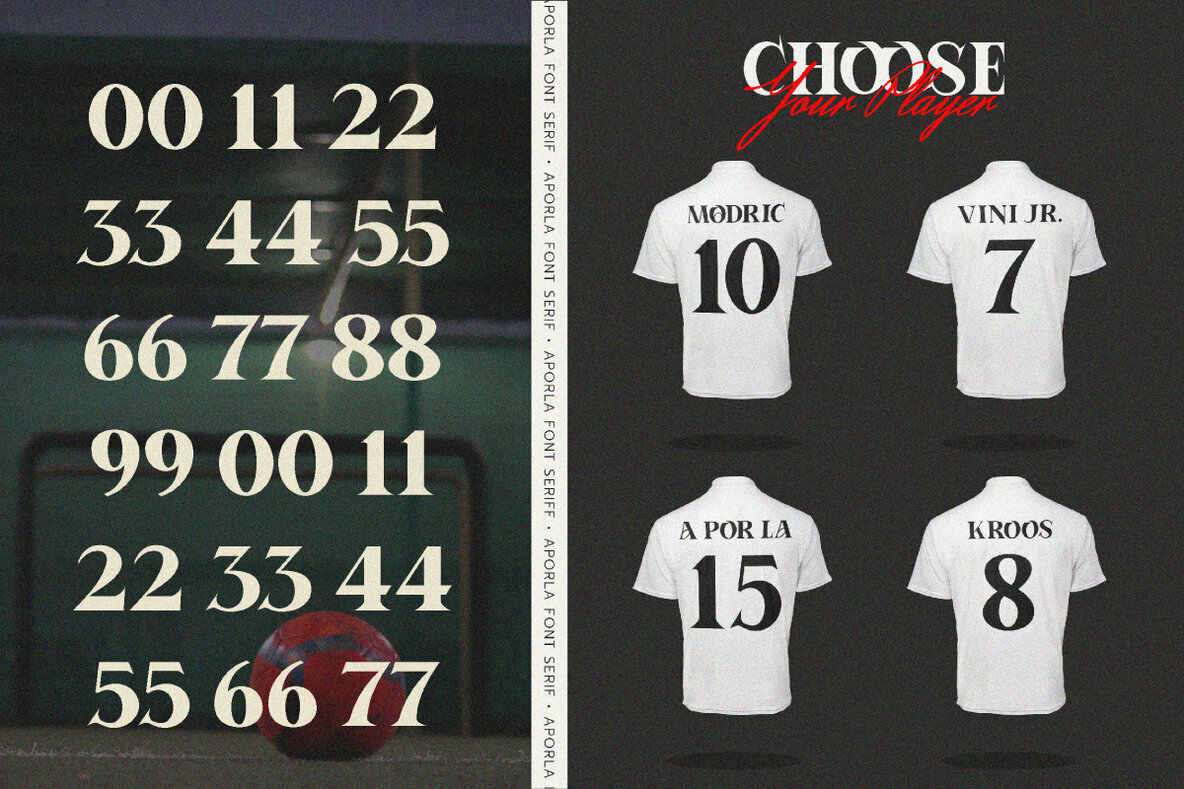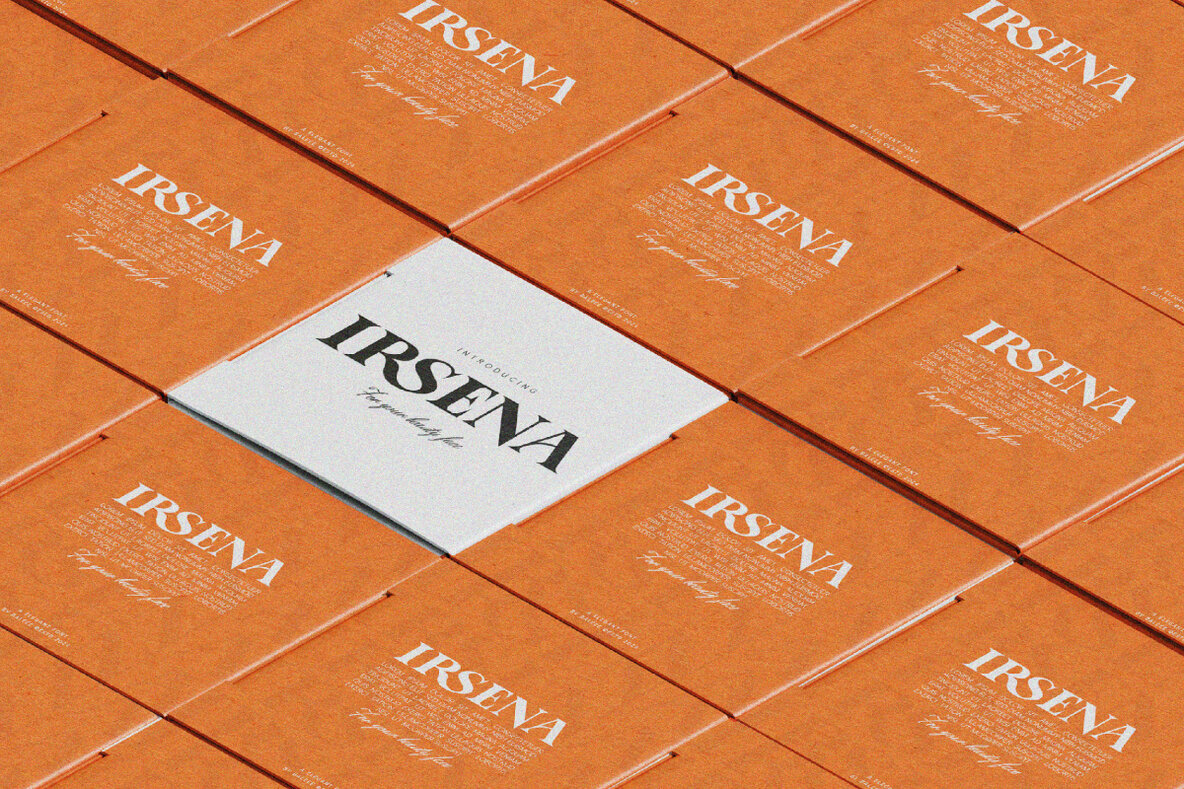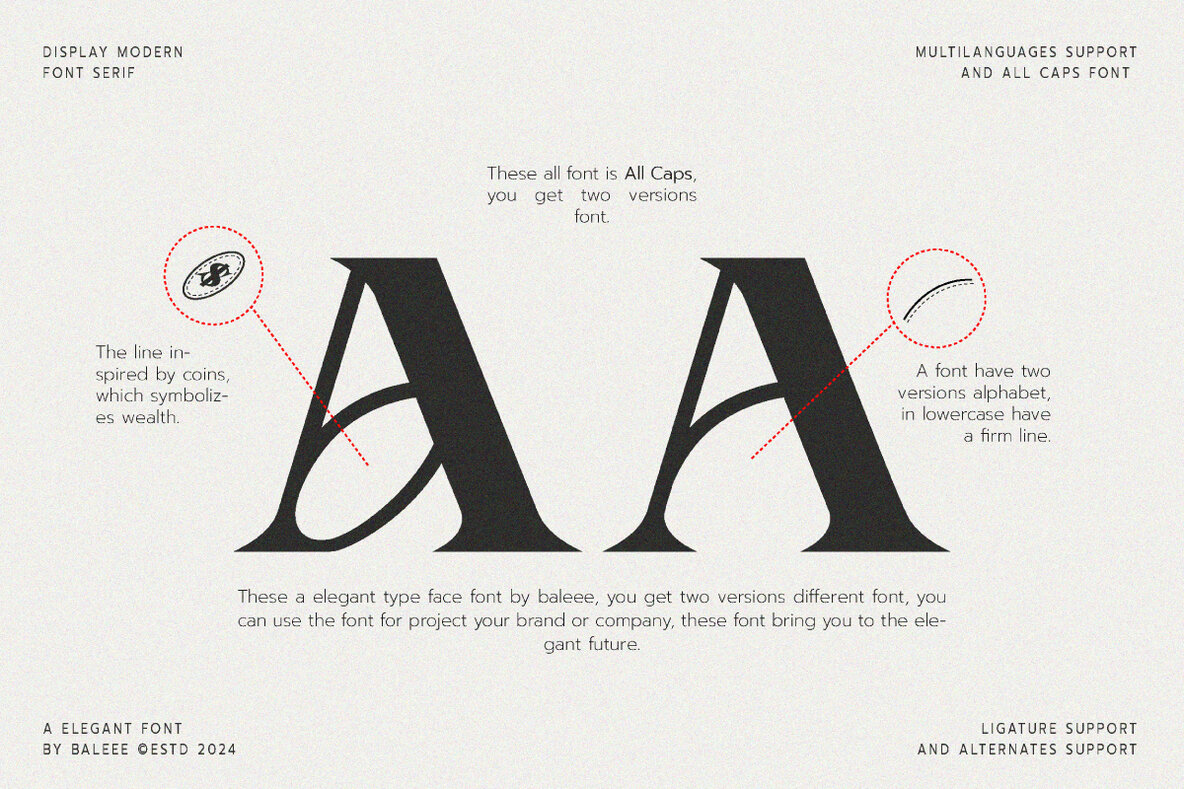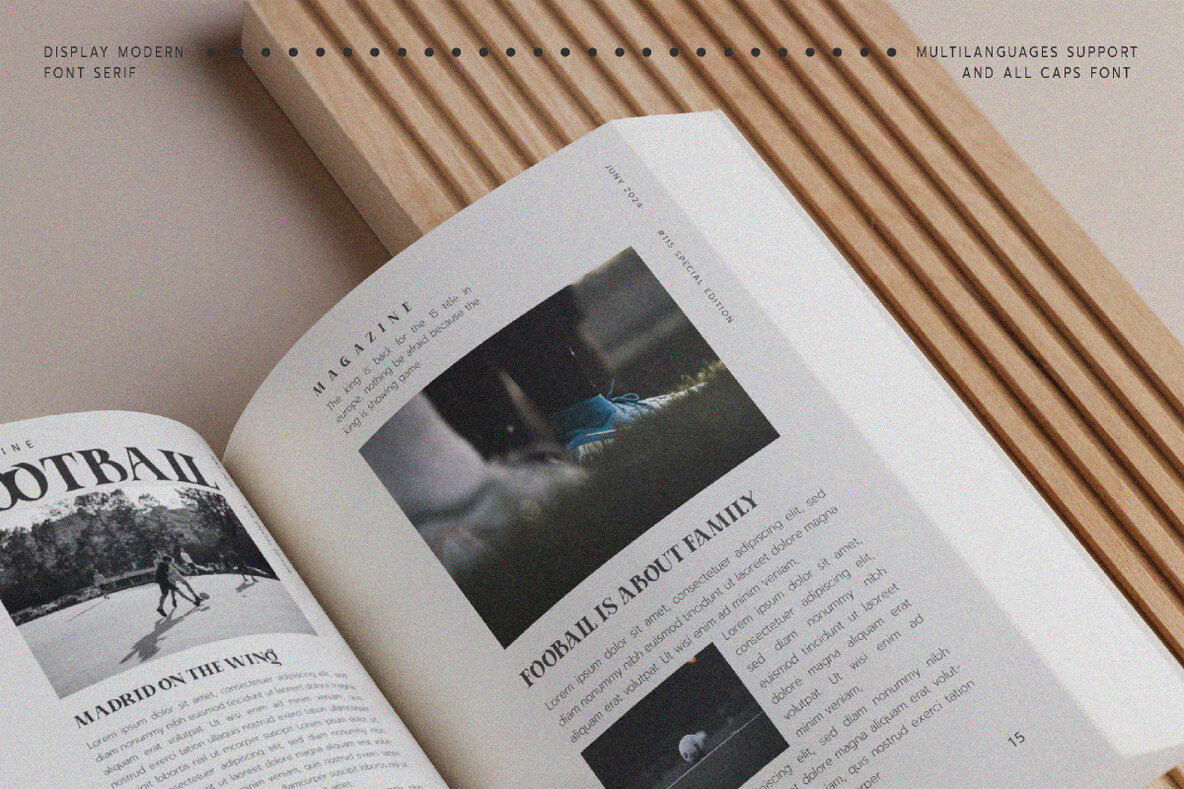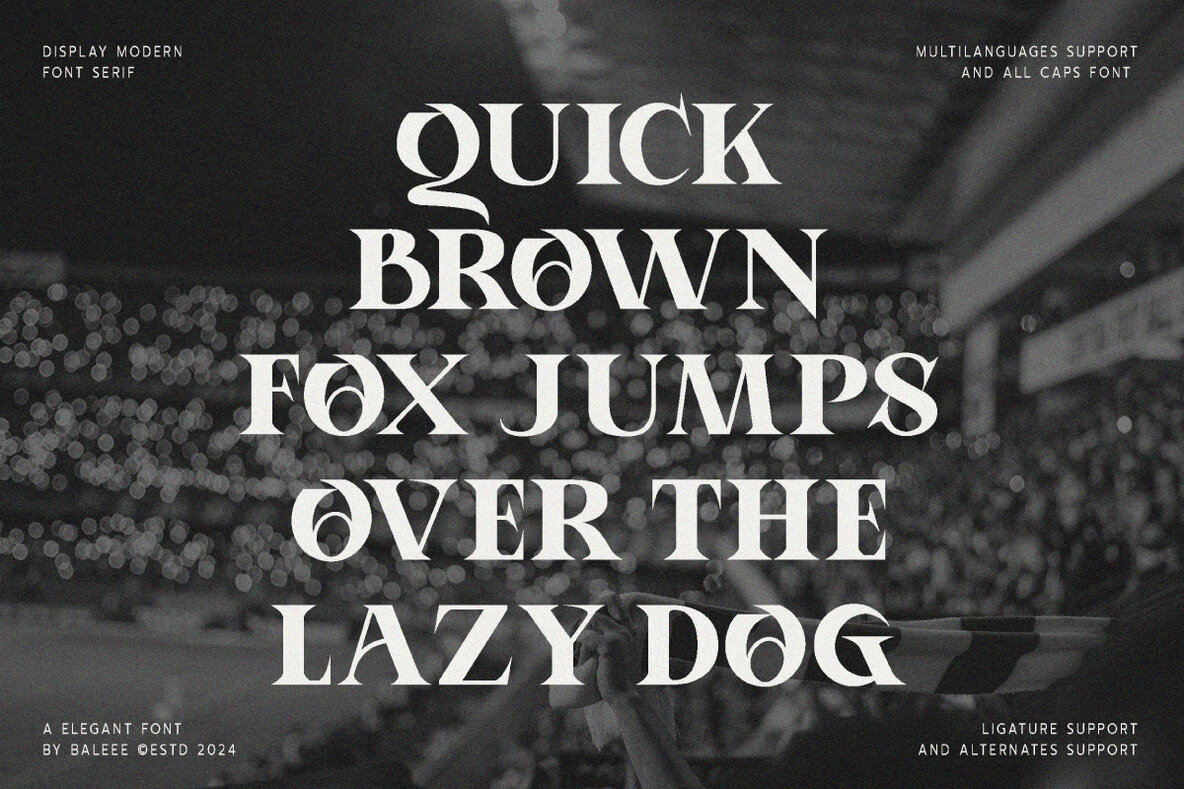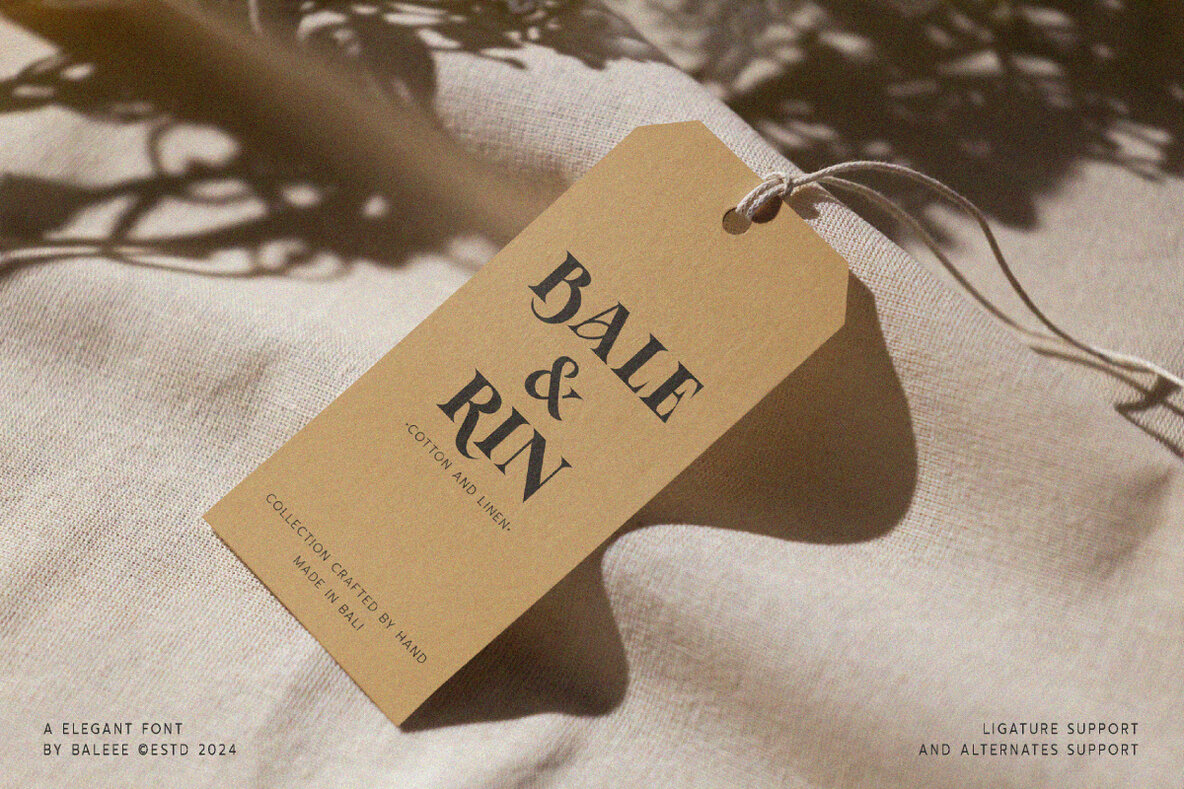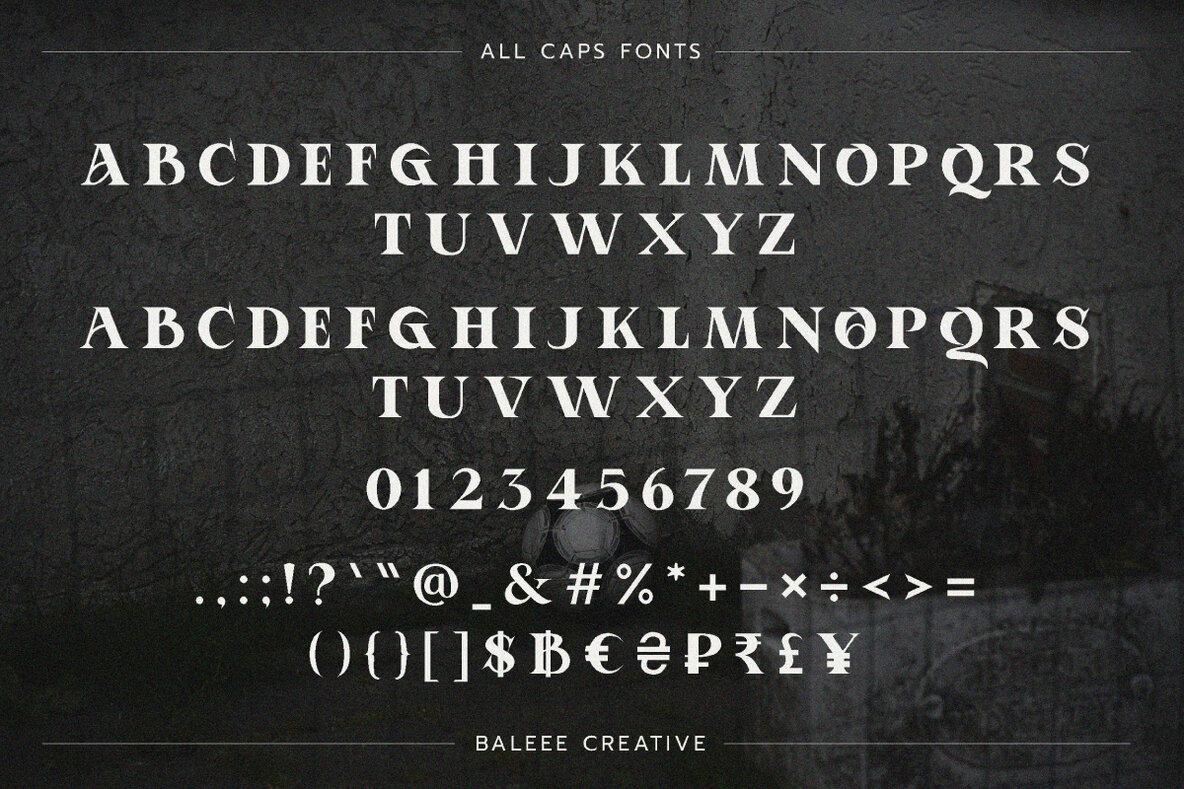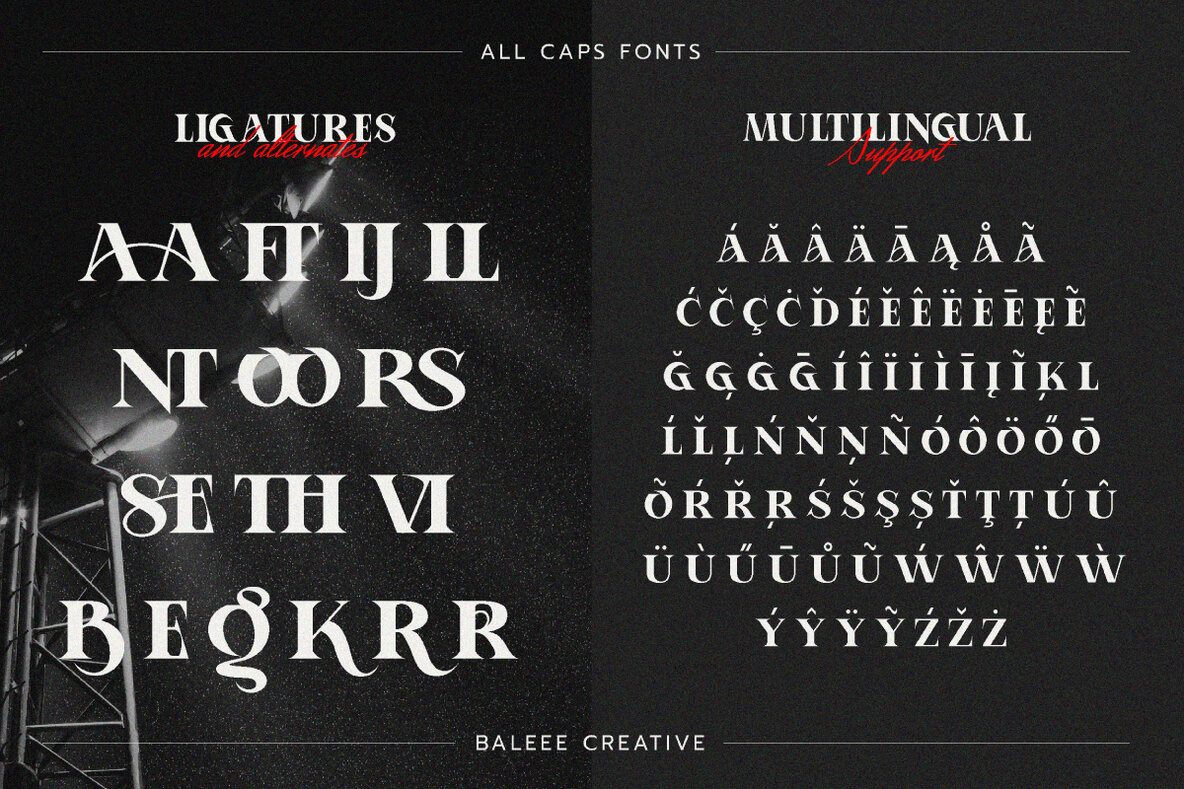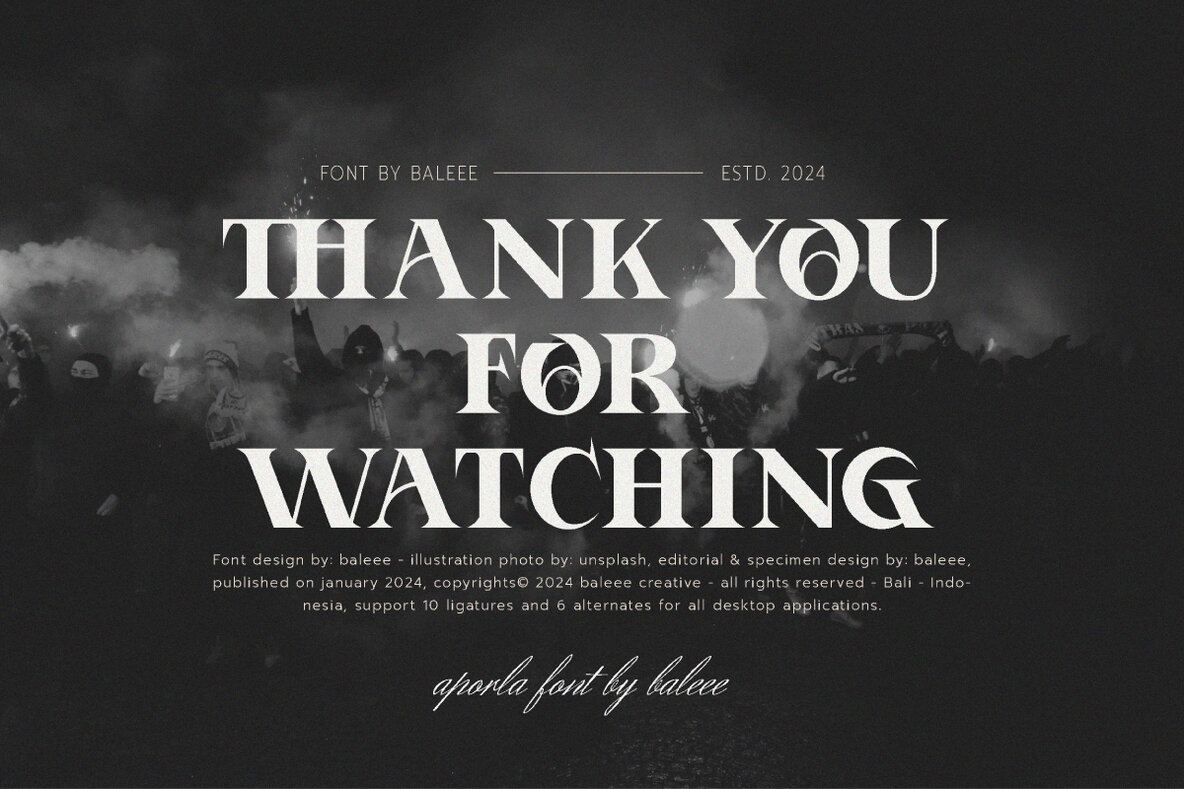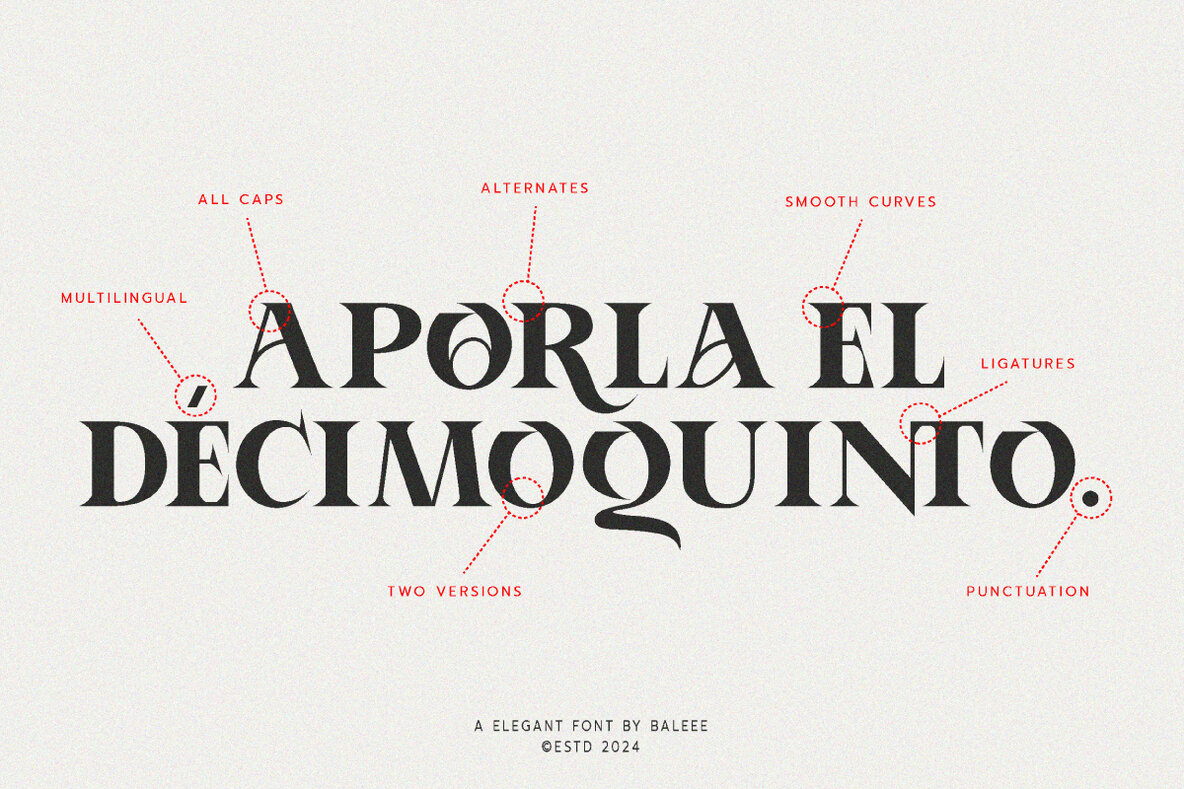
Aporla Font
Aporla Regular
Aporla is an elegant serif font crafted by Baleee, characterized by its modern aesthetic and elegant design. This font is equipped with alternates and ligatures, providing versatility and creative potential for users. The soft and unique look of the letter edges contributes to its elegant and authentic appearance. To access the font's ligatures and alternates, use applications like Photoshop or Illustrator, or utilize your character map panel. If additional help is needed, guidance is available upon request. The Aporla font package includes the NARASWARI Regular in both OTF and TTF formats. It is designed to meet diverse design needs, making it a versatile choice for various projects.Aporla: Elegant Serif Font with Modern Flair